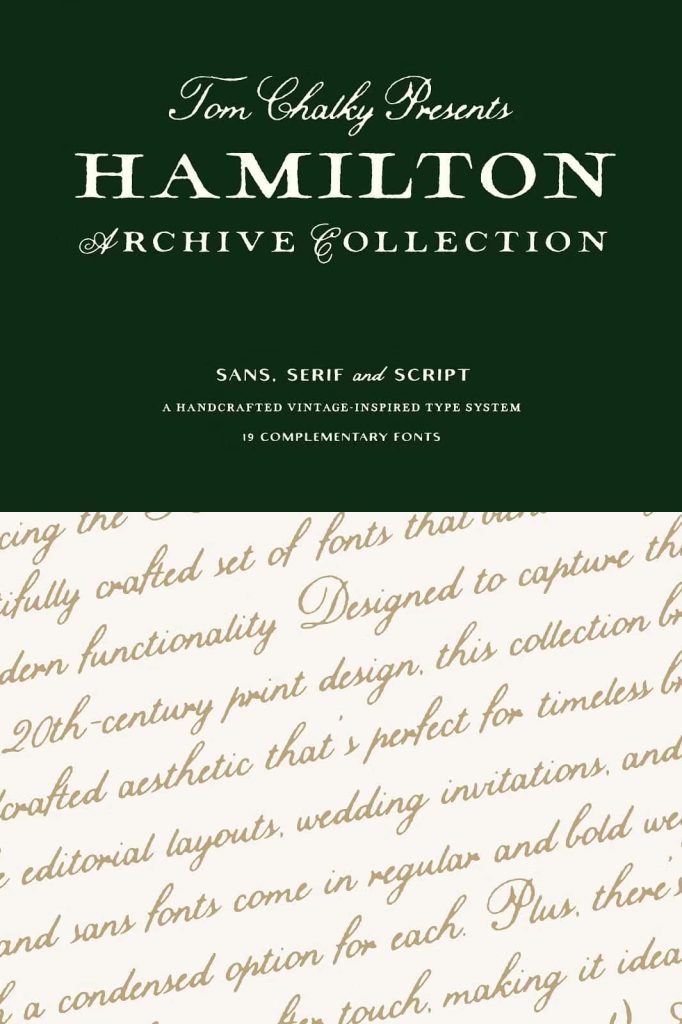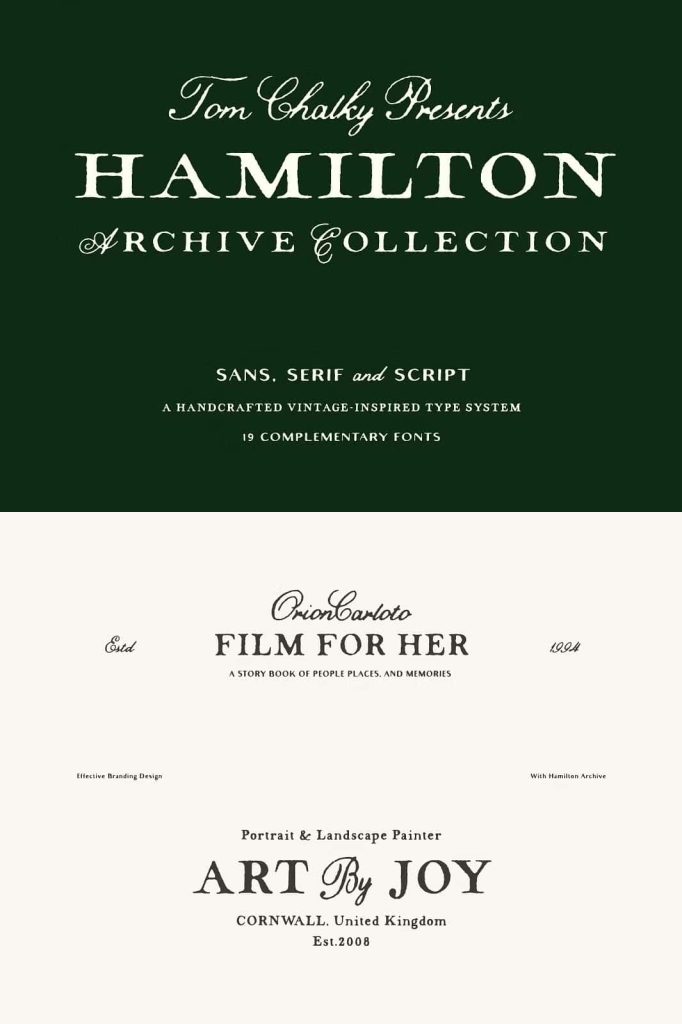
Hamilton Archive Font Collection – Where Vintage Craft Meets Modern Design
Hamilton Archive Font Collection is a beautifully crafted set of fonts that captures the artistry of early 20th-century print design while embracing the needs of contemporary creators. Every curve, stroke, and serif has been meticulously designed to evoke a sense of authenticity and handcrafted charm. This font collection merges vintage elegance with modern precision, offering designers the freedom to build projects that feel both timeless and distinctive.
Inspired by the Legacy of Classic Typography
The Hamilton Archive Font Collection draws inspiration from the rich history of printmaking and hand-set typography. Each font in the collection reflects the detailed craftsmanship of the letterpress era, blending organic texture with modern refinement. This thoughtful balance between past and present makes Hamilton Archive a versatile tool for designers who appreciate the beauty of heritage design but need the flexibility of contemporary functionality.
With this collection, you can bring the character of antique print shops into today’s digital world. The fonts have been carefully digitized to maintain the warmth and texture of traditional ink impressions, resulting in text that feels alive and engaging on any medium.
Perfect for Timeless Branding and Elegant Design Projects
Hamilton Archive is the perfect choice for designers seeking a font that tells a story. Its vintage roots make it ideal for branding projects that aim to evoke authenticity and trust. Whether you are designing a logo for a boutique brand, crafting a wedding invitation, or styling an editorial layout, this font collection delivers a sophisticated tone that resonates with readers and viewers alike.
The set’s versatile weights and styles make it suitable for a wide range of applications—from graceful headlines to refined body text. Its aesthetic strength lies in its ability to adapt seamlessly across print and digital formats, ensuring consistency and beauty in every design output.
Features That Elevate Every Creative Project
- Authentic Vintage Appeal – Designed to emulate early 20th-century typography with meticulous attention to historical detail.
- Modern Versatility – Ideal for both print and digital design, maintaining elegance across different platforms.
- Rich Character and Texture – Every letterform features handcrafted nuances that enhance visual depth.
- Multiple Font Styles – Offers a range of complementary weights and variations for dynamic design use.
- Perfect for Branding – Enhances the personality of logos, packaging, business cards, and marketing materials.
Bring a Handcrafted Touch to Your Designs
Designers who value detail will find Hamilton Archive to be a powerful ally in creative expression. The fonts are built to pair beautifully with both minimalist and ornate design concepts, adding a tactile quality to every project. Whether you’re working on magazine covers, book titles, or vintage-inspired websites, this collection helps you achieve a sense of timeless beauty.
The handcrafted aesthetic of Hamilton Archive enhances every design it touches. Each letter’s texture and form contribute to a cohesive visual experience that feels both nostalgic and relevant. This balance allows your work to stand out with an enduring, handcrafted quality that digital fonts often lack.
Why Designers Love Hamilton Archive
The Hamilton Archive Font Collection isn’t just another vintage-inspired typeface—it’s a celebration of craftsmanship. Its design process honors traditional typographic methods while embracing the precision of modern tools. The result is a font collection that feels authentic, usable, and inspiring across creative disciplines. From boutique branding to luxury print materials, Hamilton Archive transforms simple text into works of art.
Conclusion: A Font Collection That Defines Timeless Style
Hamilton Archive Font Collection is the ultimate choice for designers seeking to blend heritage and innovation. Its combination of handcrafted artistry and digital precision offers a distinctive visual identity for every project. Whether you’re developing a classic editorial layout, refining your brand identity, or crafting custom invitations, Hamilton Archive delivers beauty, legibility, and enduring charm. Add it to your design toolkit and bring vintage sophistication into the modern age.